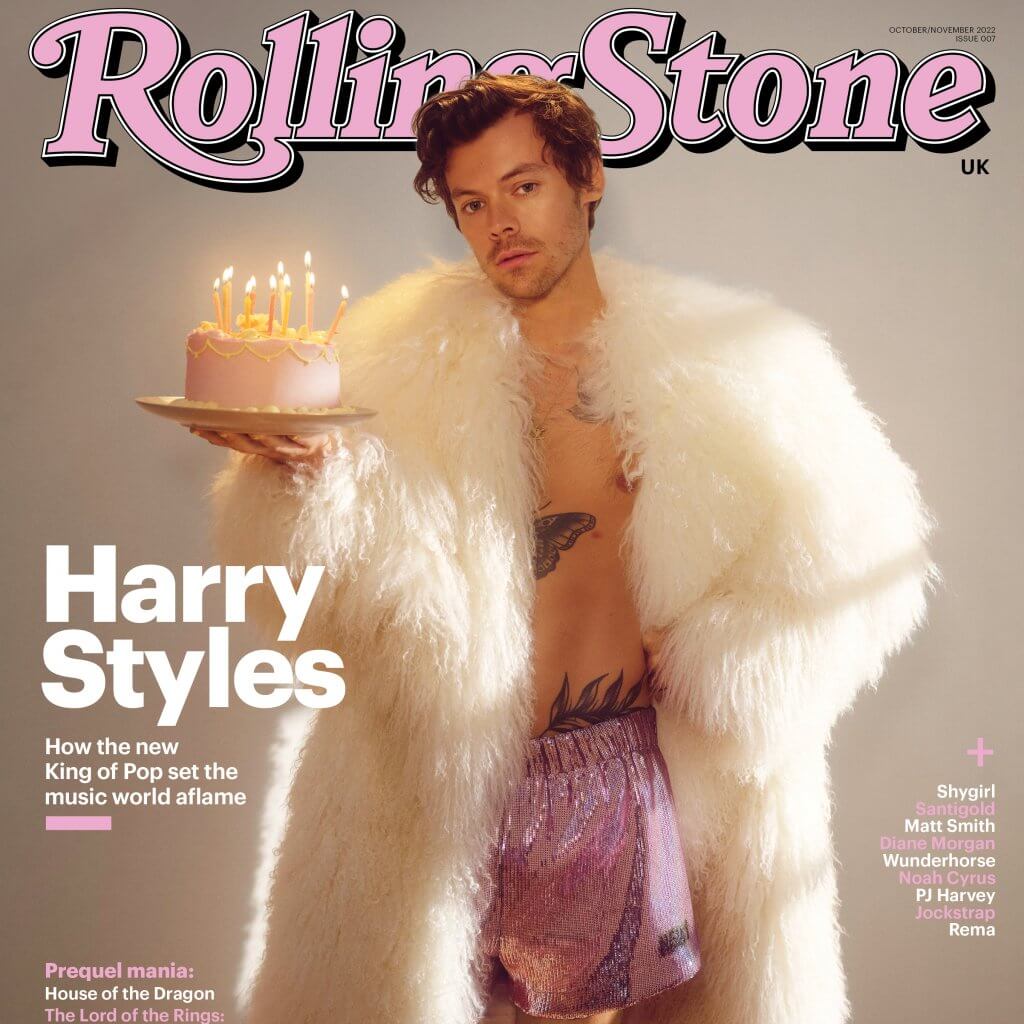
This week, we were joined by Alex Hambis, Art director for Cosmopolitan magazine. Alex shared his experience in designing magazine covers for some of the biggest Editorial names in the UK.
University and graduation
Starting with studying publishing at Oxford Brookes university, Alex explained how he tailored his university course to be print/magazine leaning. Being pop culture obsessed, this allowed him the freedom to explore such topics in the way he enjoyed reading them, through magazines. After getting a taste for setting up a student magazine whilst at university, post-graduation, Alex started an online magazine, which covered culture and music. This not only allowed him to write about his interests but also gained him free entry to PR events.
A quick tour of the CV
Following his graduation from university, came the hunt for work experience. Alex gave students some valuable advice of being persistent, recommending cold emailing designers and art directors of companies that they would like experience at. Even if some emails end up bouncing back, some will go through, and opportunities could arise from just one reply. Alex hit the ground running by starting with work experience at ‘NME’, a small celebrity magazine. He then applied for a job at Closer magazine, and while he didn’t land that specific job, the company were impressed with his application and his name was passed on, securing him a design internship with a different magazine.
The print ladder
After completing a design internship, Alex set his sights on climbing the ladder through the stages of junior designer, mid-weight designer, senior designer, art editor, senior art director, and creative director. While climbing the ladder, Alex dabbled in other fields such as a UX role at Uniqlo, where he began to get involved with photoshoots. Ultimately, Alex missed magazine design, and returned to the world of print, applying for an art director role with little hope of achieving this (having not held this position previously). However, Alex proved himself wrong, and secured the role, propelling his career towards art direction for Attitude, Rolling Stone UK, and now Cosmopolitan.
The current magazine landscape
Alex described magazines to be among the ever-changing media landscape at the moment. Students were interested to hear that for the world of print, design is now more important and powerful than ever, with magazines acting as collectibles just as vinyls are to the world of music. Alex used the phrase ‘cover is king’ – not only do celebrities still want to appear on the front cover, but consumers still want to buy magazines featuring the faces of those they admire. Magazines are and will always be a tangible hero product that the consumer wants to physically hold in their hands.
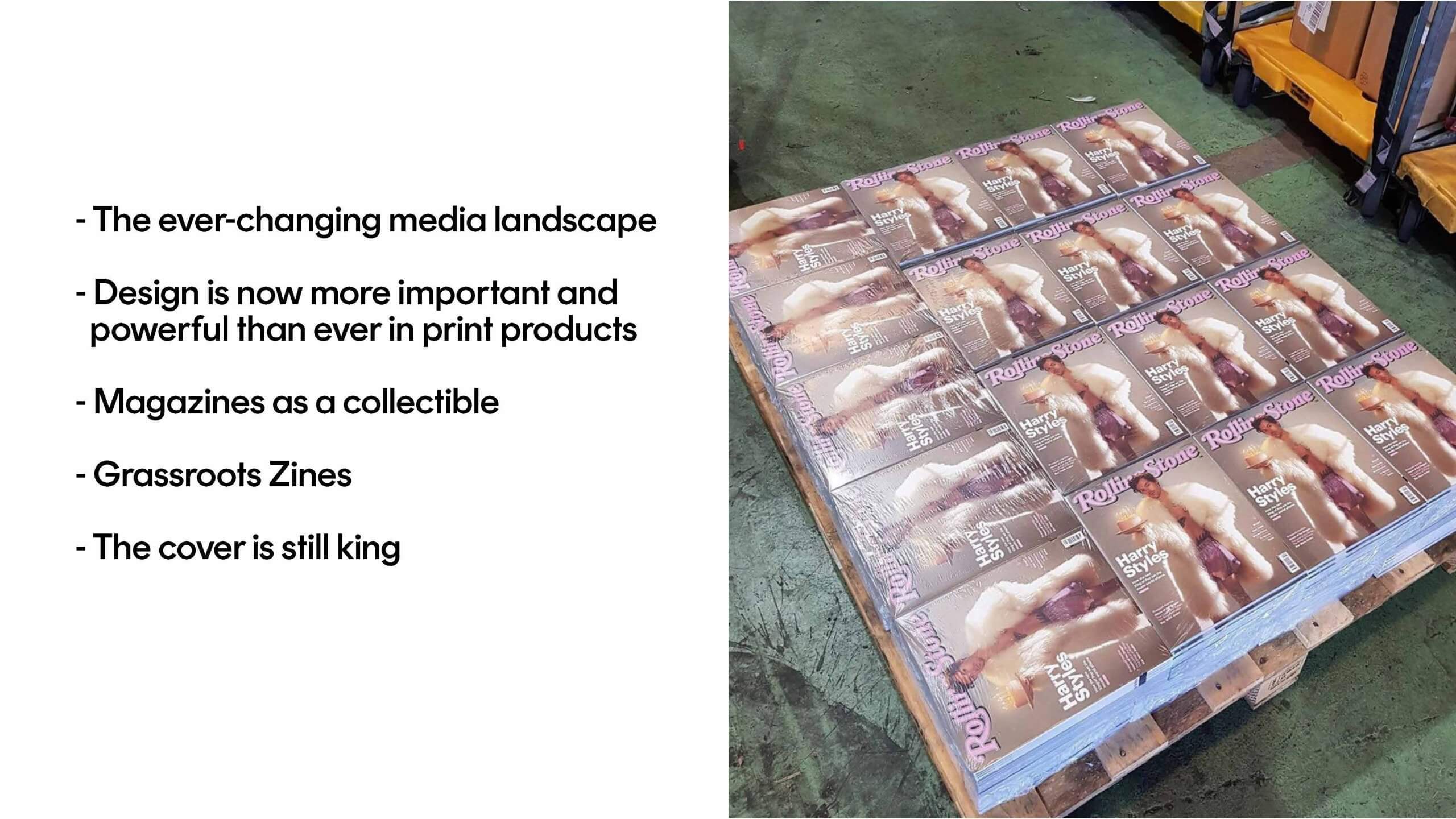
Designing the cover – what to consider?
It is important to know your audience, and Alex gave students a few key questions to consider when designing the cover:
- Where is this being sold? Online? Social media? A shop? Something they want landing on their doorstep?
- Who is it being sold to? Is this the older demographic/newer demographic? Or is this being sold to someone who directly wants it? Or someone asking another to buy it for them?
- Is it an impulse purchase? Or is this something a consumer comes back to buy weekly/monthly?
- Where in the world are you designing for? The US and UK have differences in cover image requirements and demand due to differing target audiences.
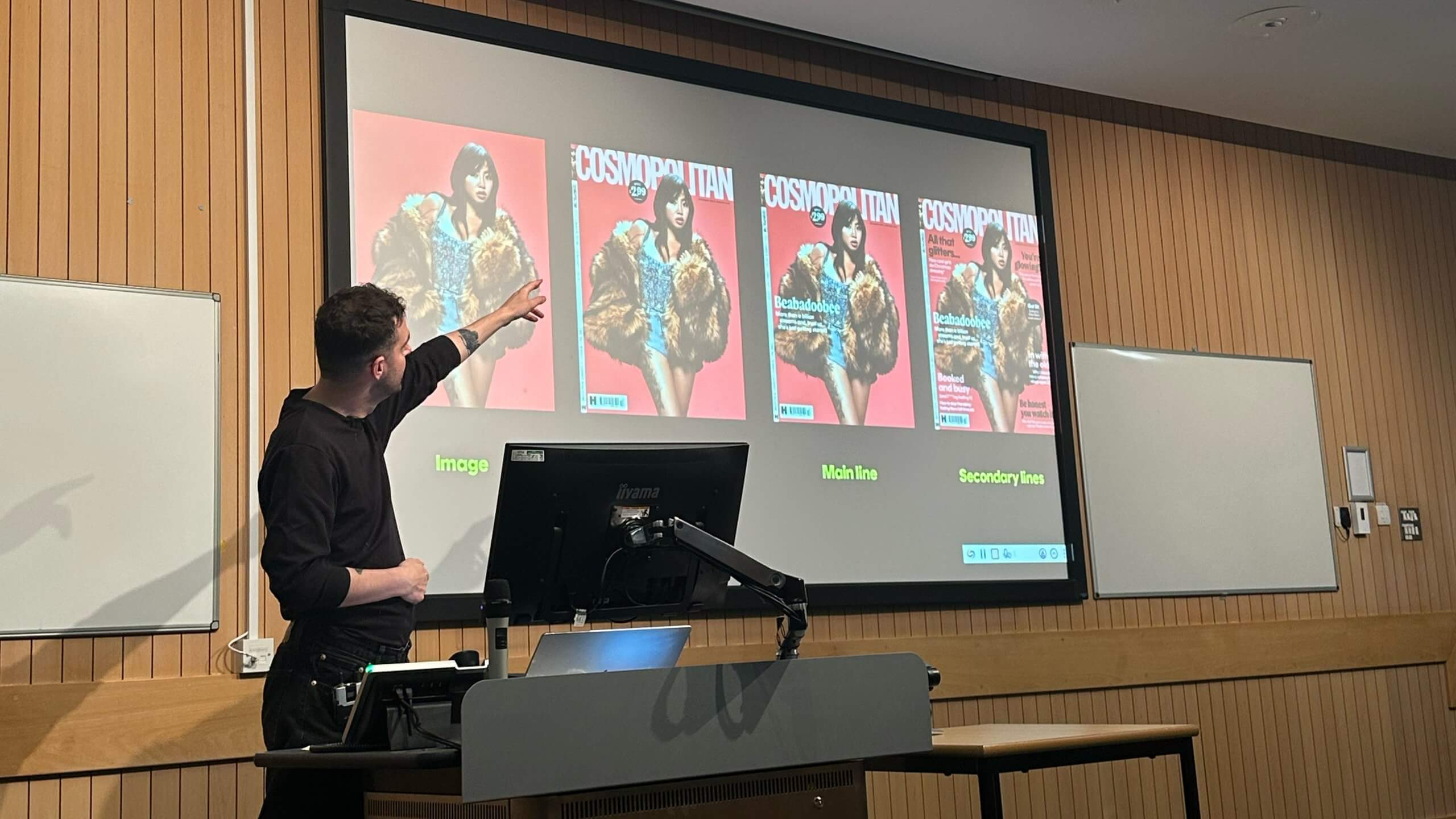
Running a cover shoot
Alex explained that design needs to be considered right from the start, even as early as shooting the covers. “The cover is always the best shot” – at Cosmopolitan, the cover shoot is run with five or six looks, before being whittled down to the top three, followed by each set of photographs being evaluated for which shot is “the best shot”. Alex advised to “Know your crop” during the photoshoot, considering the future placement of mastheads, cover lines, and required copy.
Digital vs print
Digital-only covers can be a lot more experimental due to the demand for immediate attention while scrolling. This can be seen in the cover on the left featuring a close-up of Charli XCX that makes for an “arresting crop”. In contrast, a cover featuring the same artist that has been designed for print (shown on the right), requires a very different crop due to the inclusion of cover lines, barcodes, dates, and other required elements that are not present on digital-only covers.
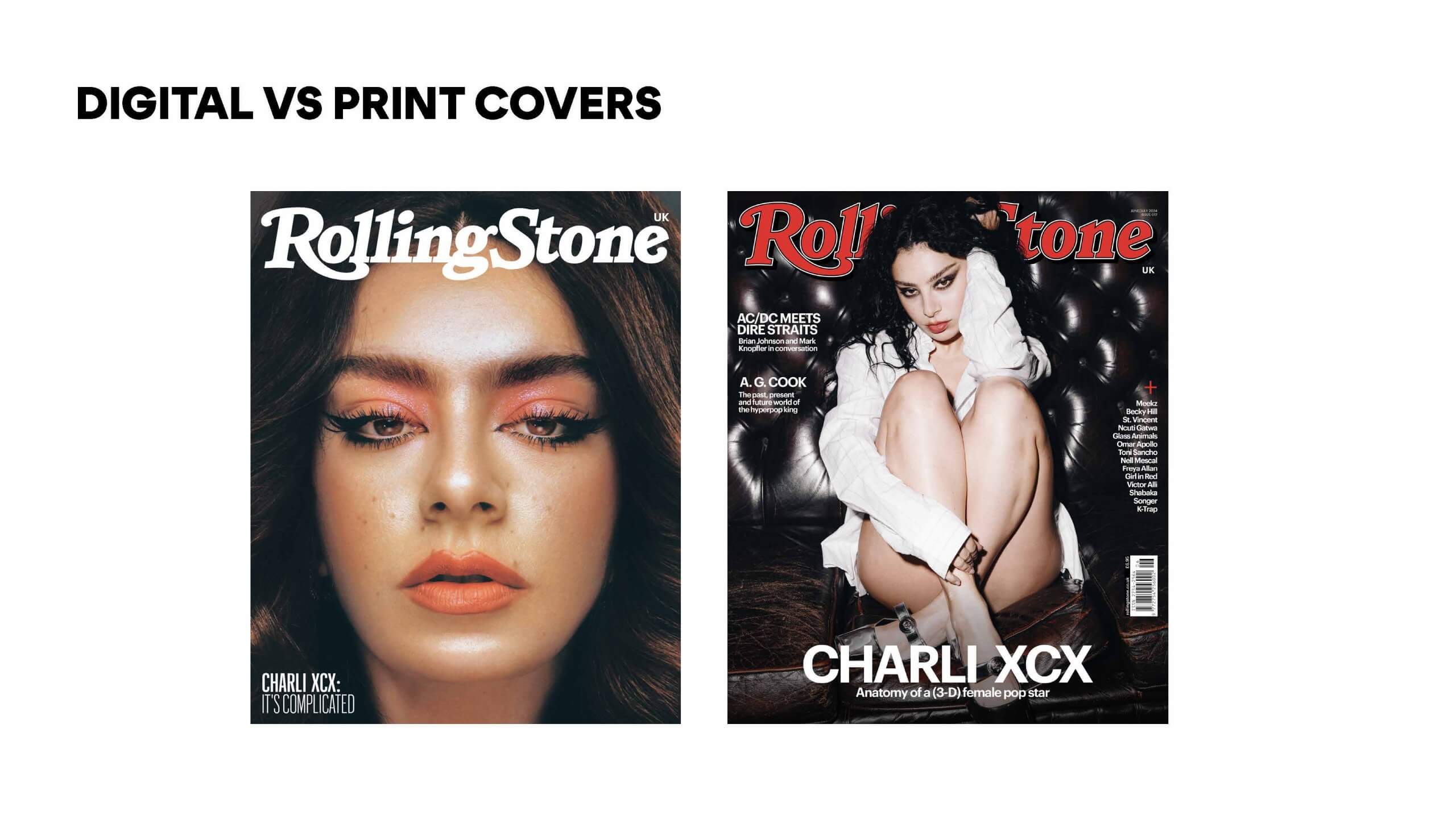
Key takeaways
- Whenever covers are believed to be ready to go, they can be placed into a fake feed on a phone to evaluate how quickly it grabs your attention while scrolling.
- Cosmopolitan suggests alternating typography between their resident serif and sans serif to add visual interest and contrast between cover lines.
- Even if you’re mainly a digital designer, print can still really help you hone your craft as it allows the eye to pick up things it wouldn’t on the screen.
- Show your point of view! Employers want to see the messy work, the fleshed-out concepts, ideas, and your problem solving.
- “The portfolio is way more than a website now”. Be discoverable on socials. 80% to 90% of photographers, illustrators, and designers that Alex seeks out are found on social media.
- “Knock on side doors, not just the front door” when looking for work experience and job roles.